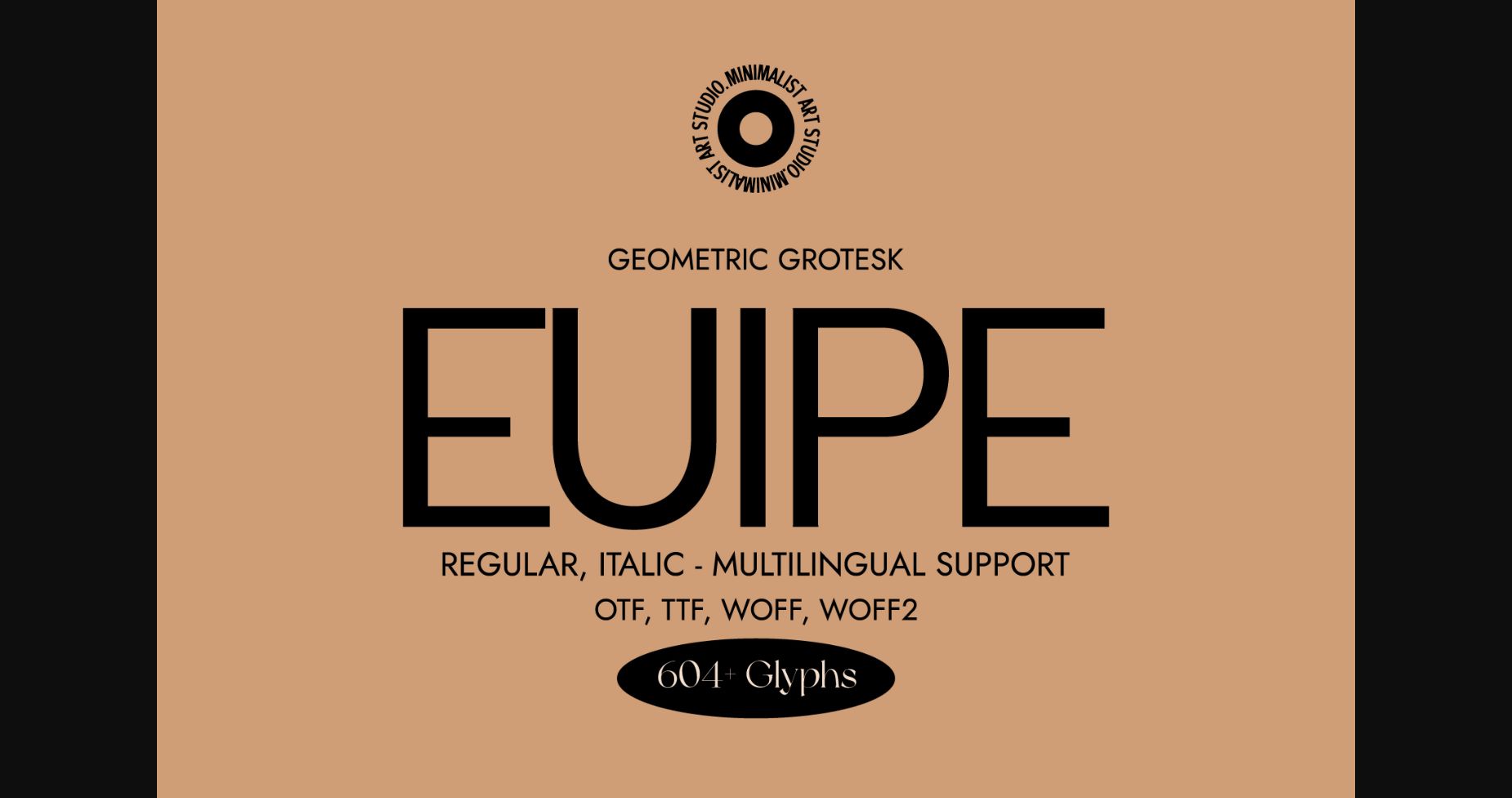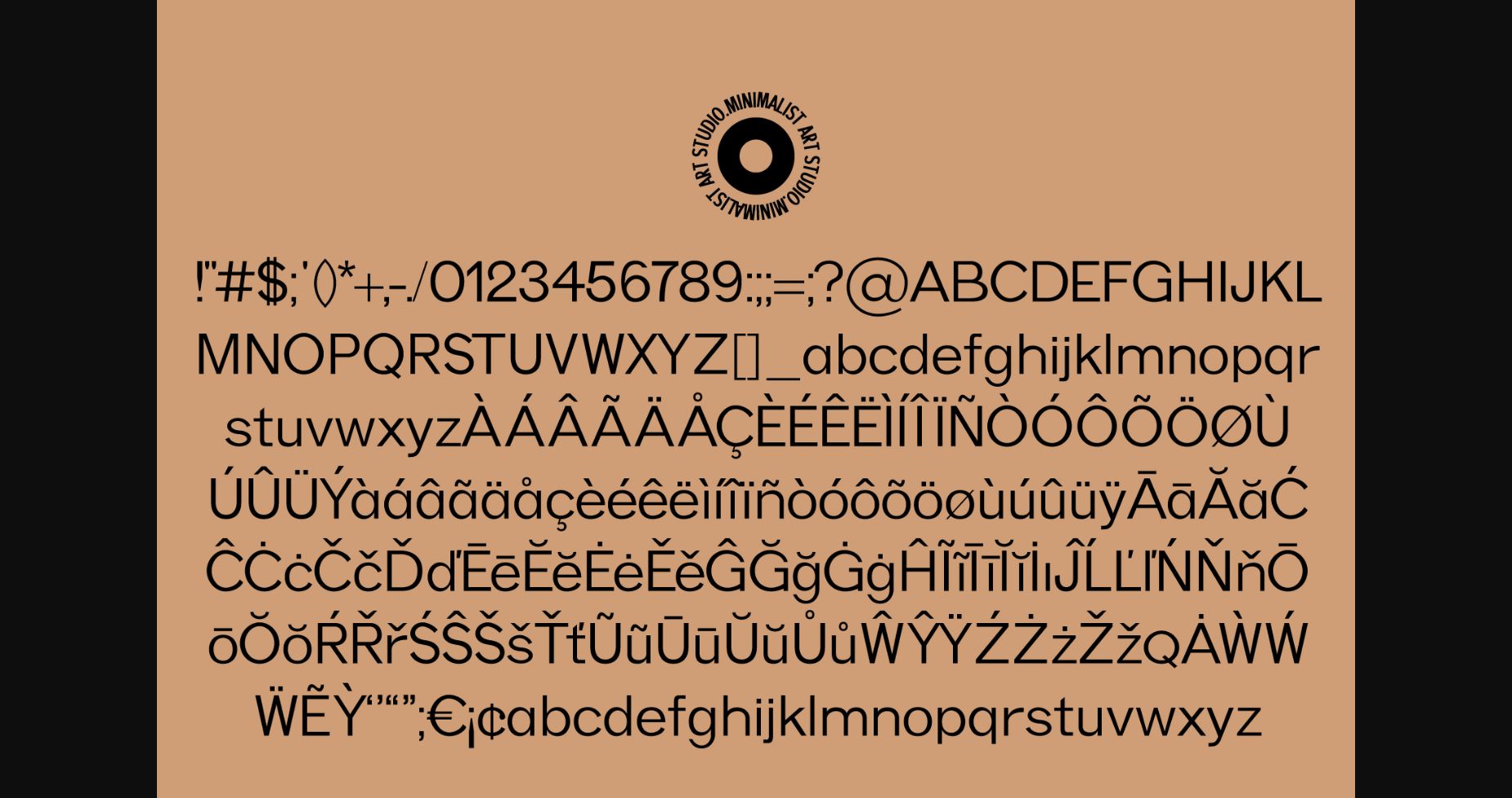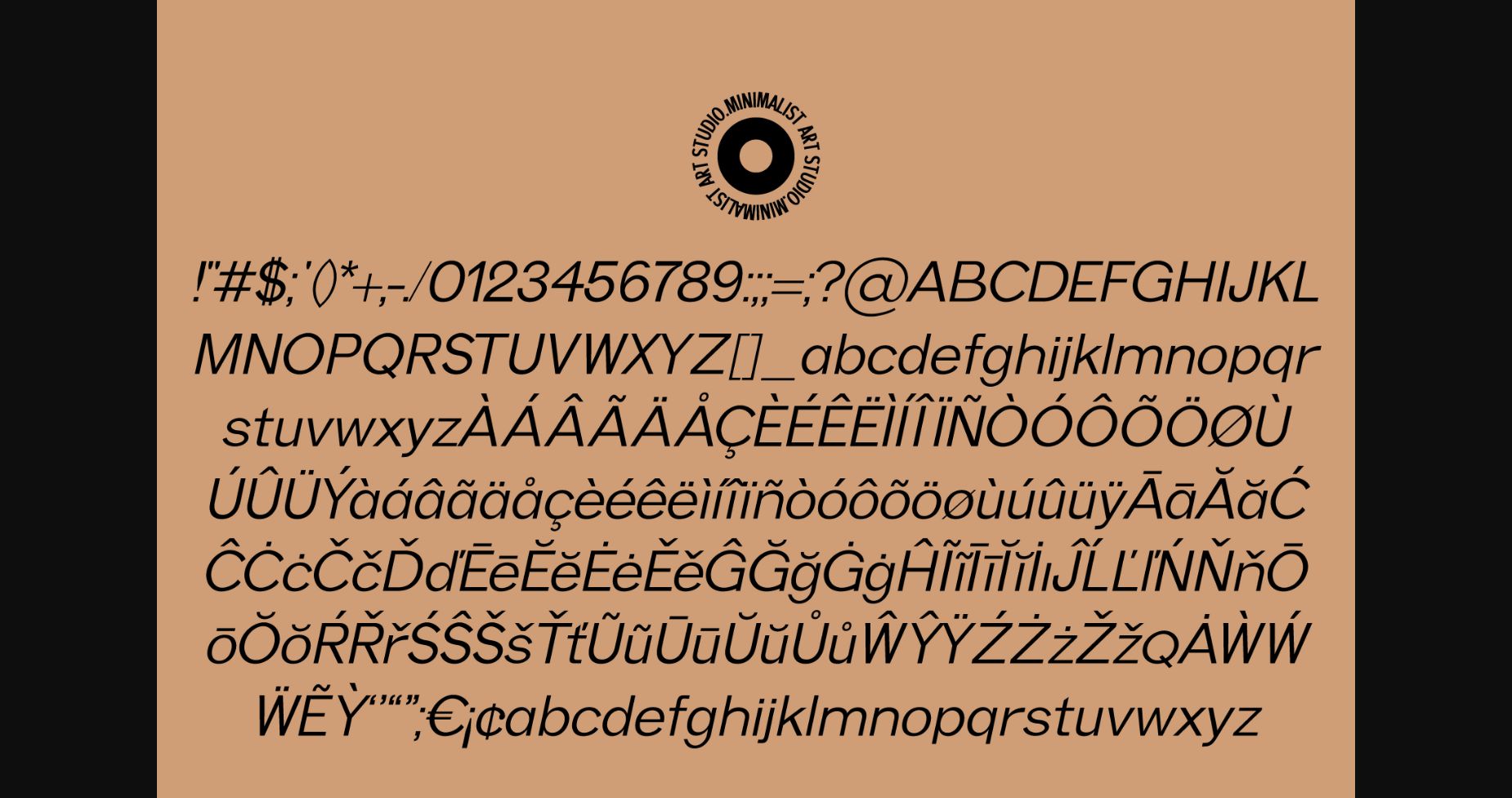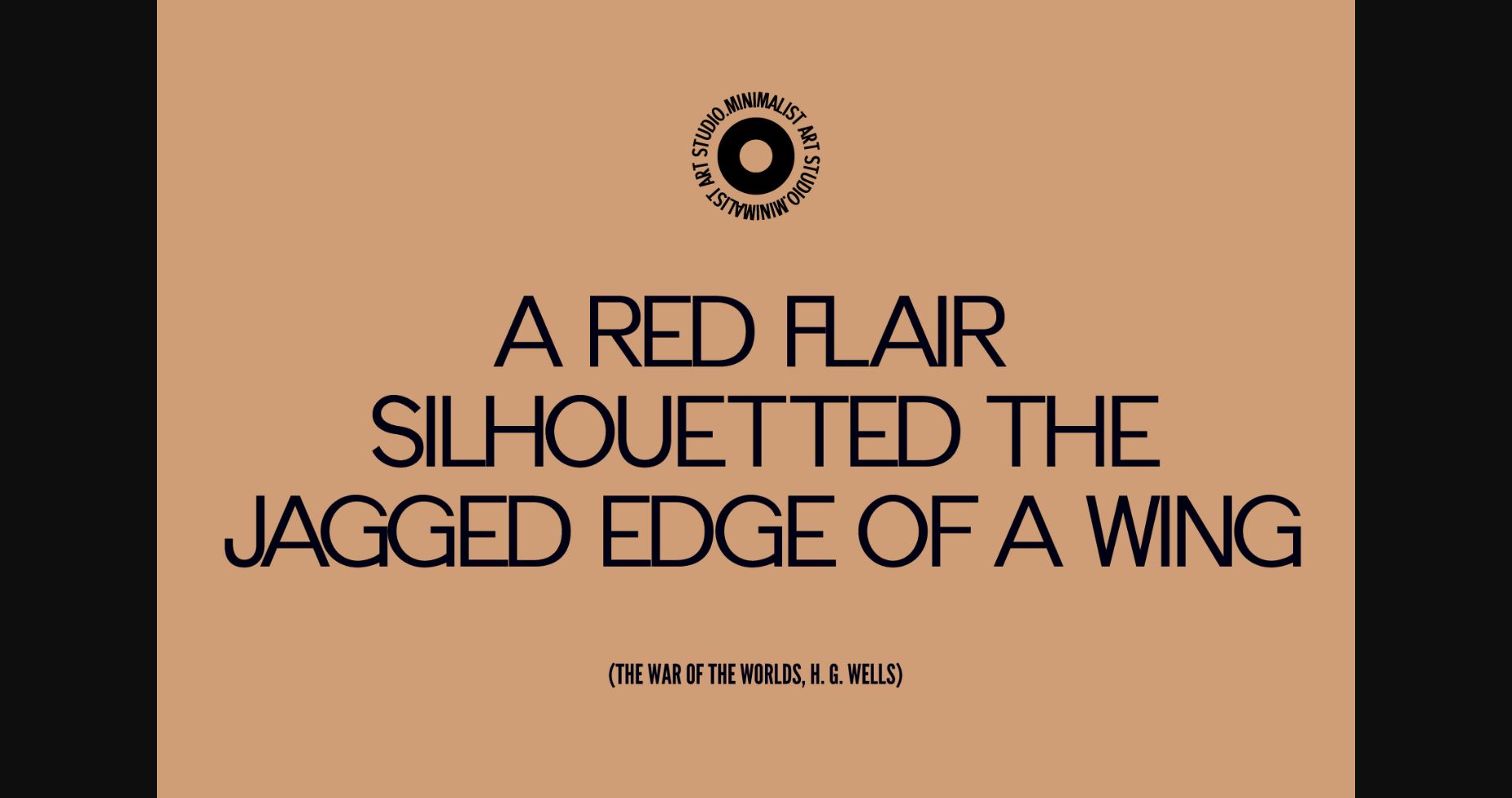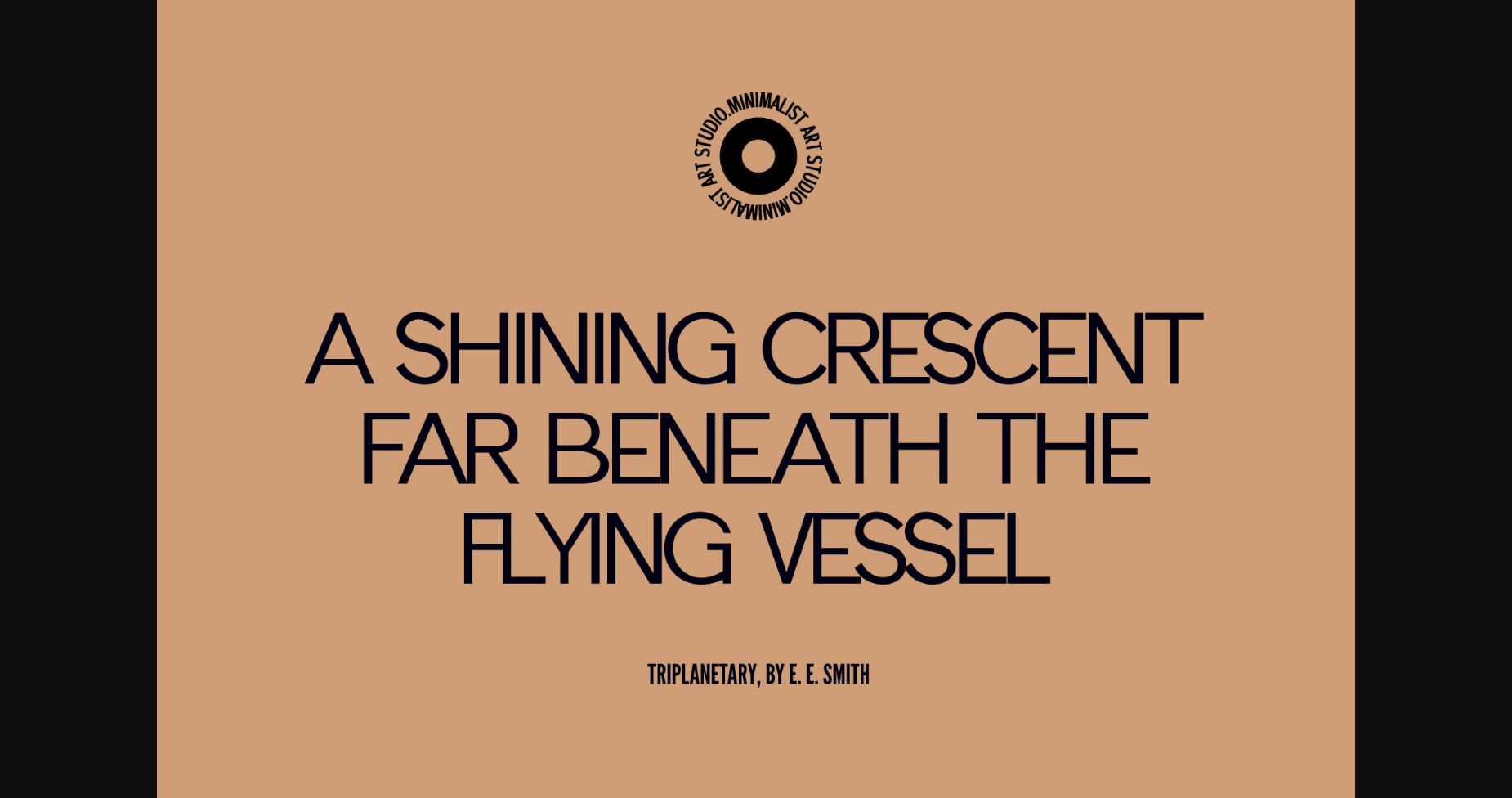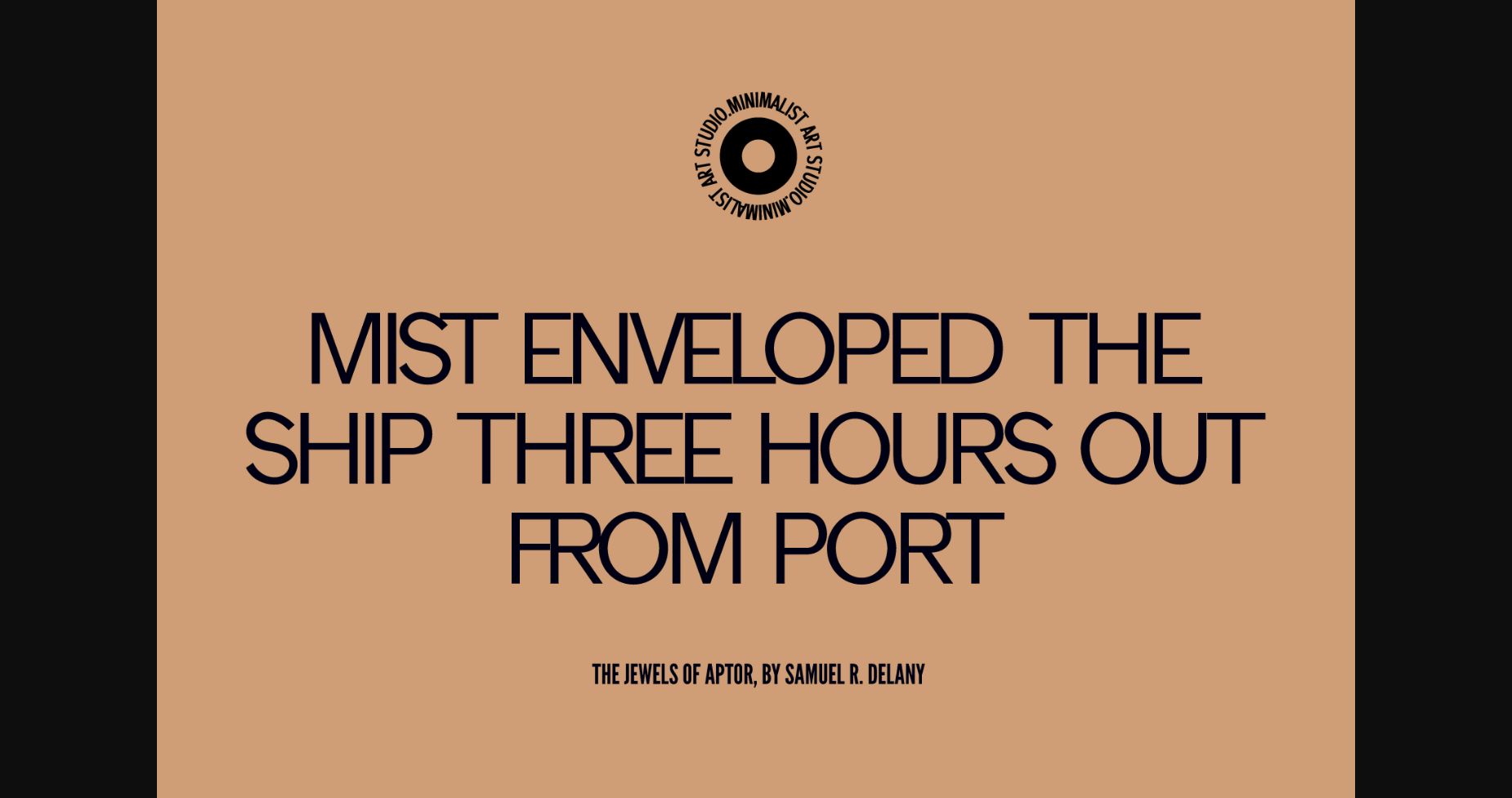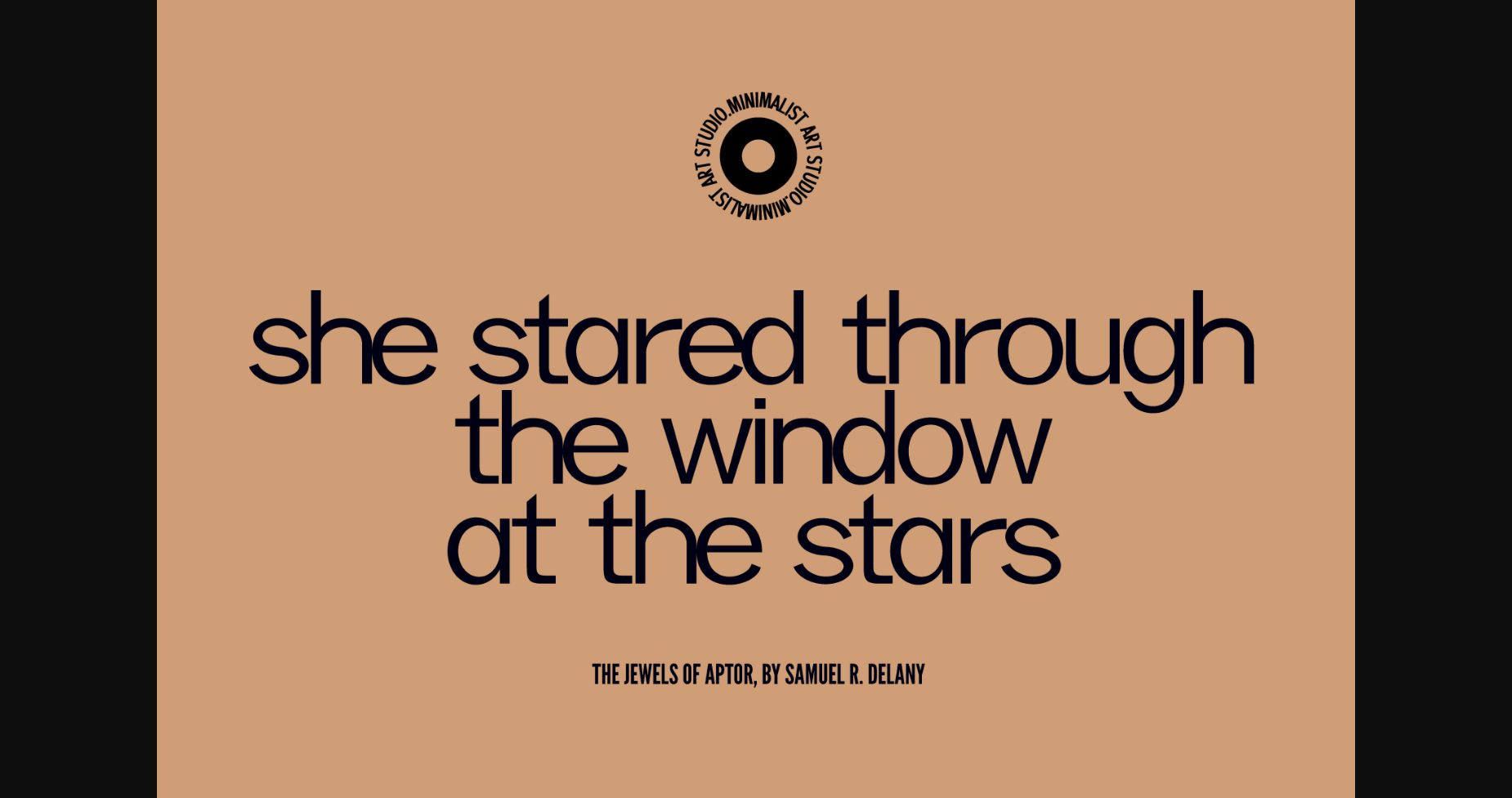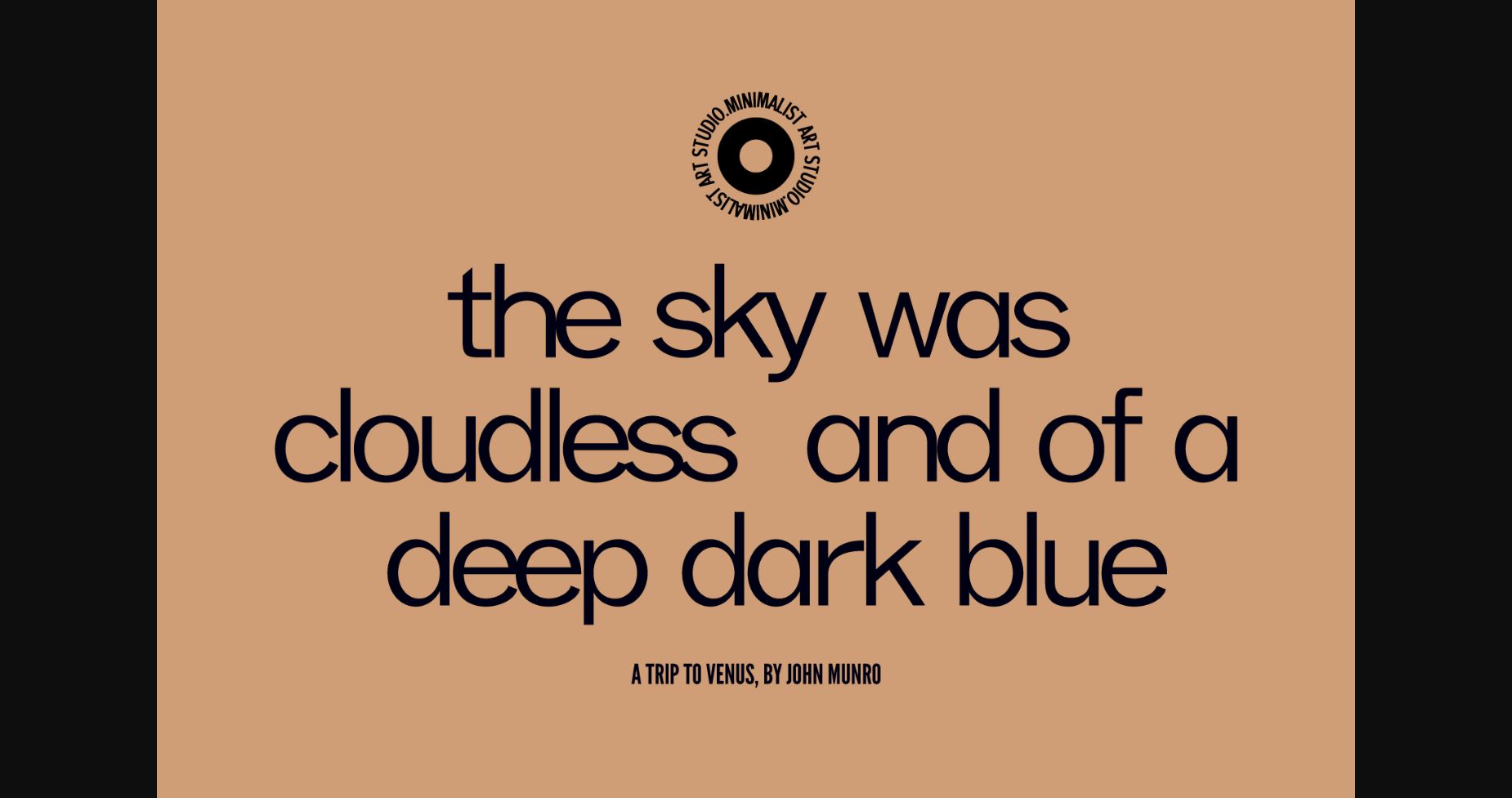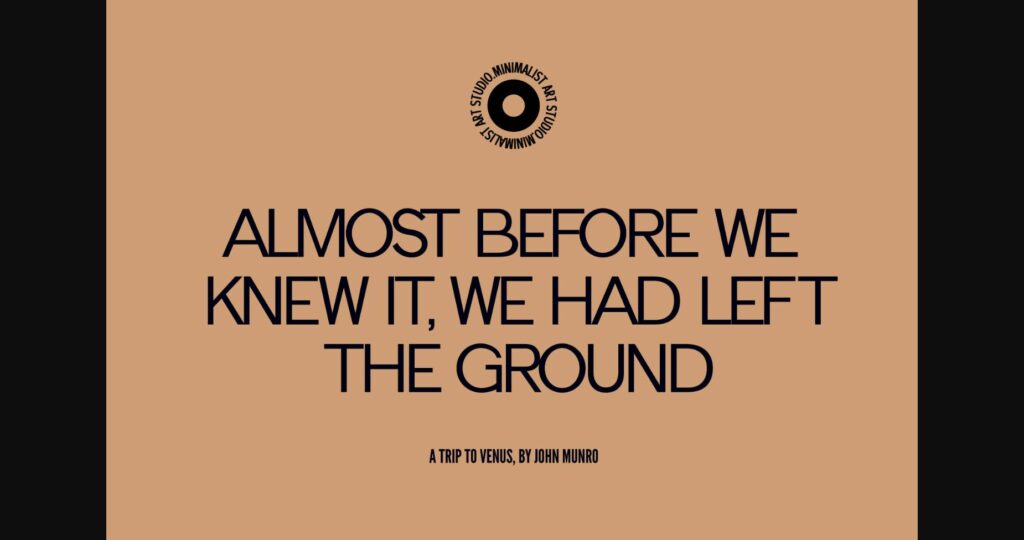
Euipe Font
About Euipe Font
Introducing “EUIPE”, a minimalist, geometric grotesque sans serif font that is perfect for modern and sophisticated design projects. This font stands out with its clean and straightforward lines, making it an excellent choice for everything from branding to packaging, website design, and more.